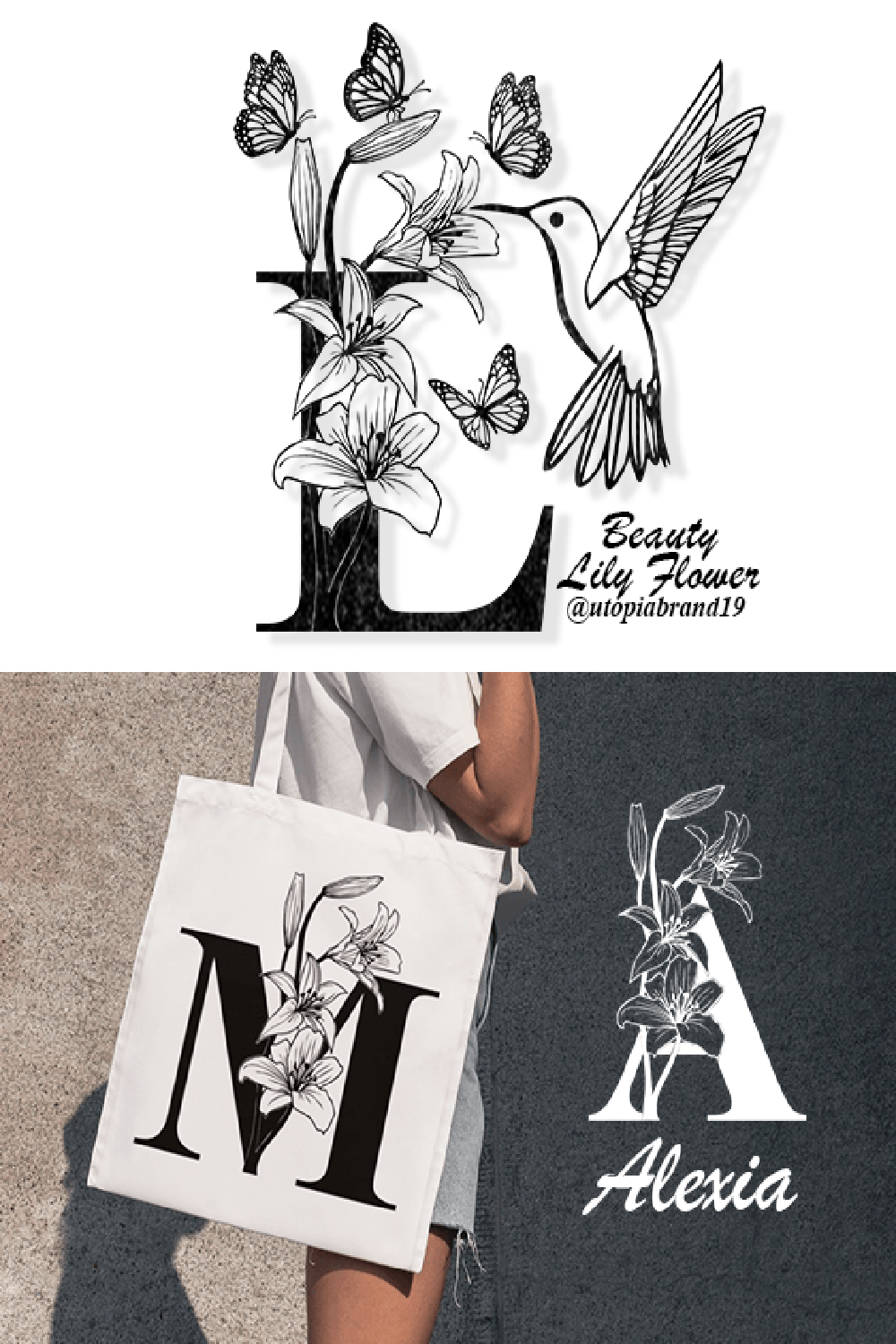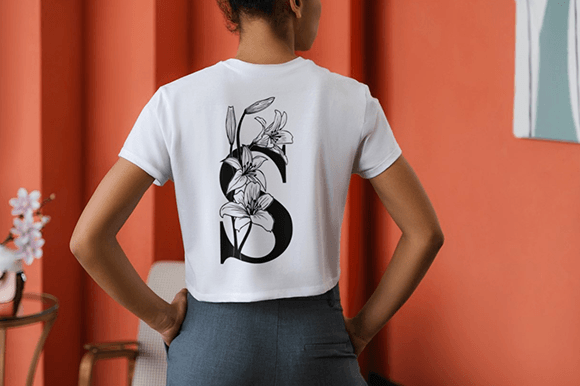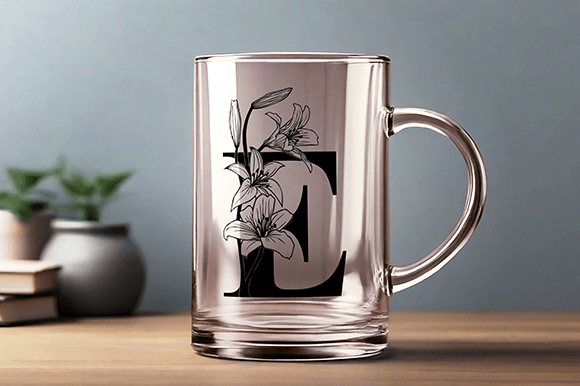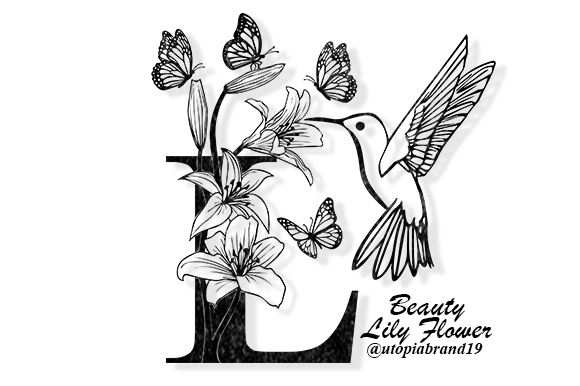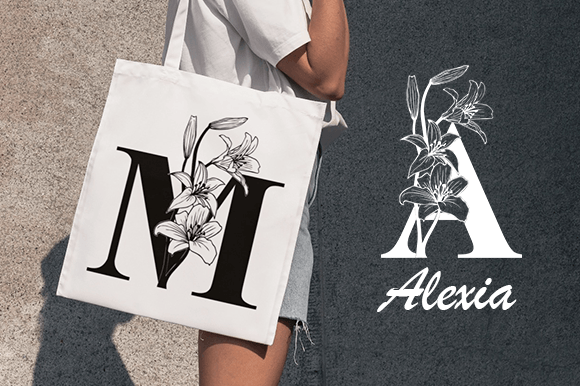
Beauty Lily Flower Font
About the Beauty Lily Flower Font
From logos to headlines, the Beauty Lily Flower Font is the perfect choice for making a lasting impression. Beauty Lily Flower is an elegant decorative font, featuring lovely ornaments. Fall in love with its authentic feel and use it to create gorgeous wedding invitations, beautiful stationary art, eye-catching social media posts, and cute greeting cards.
Beauty Lily Flower Font Usage Examples